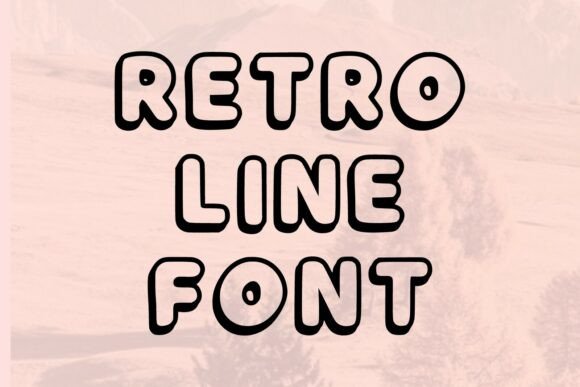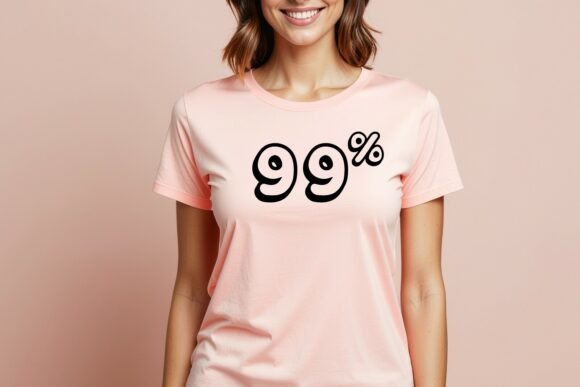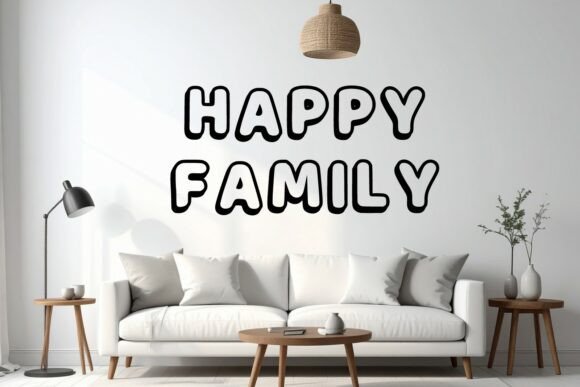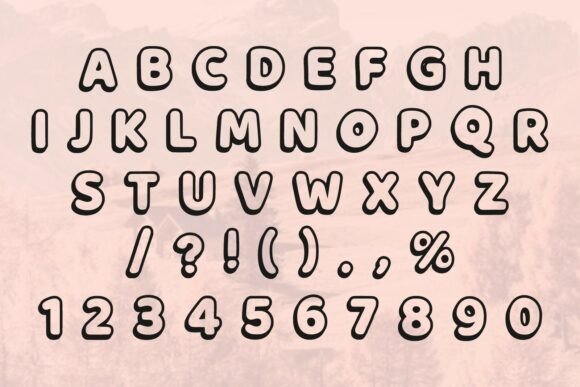
Introduction to Round Outline Font
Do you remember the thrill of creating your first design project? The rush of excitement as you poured your heart and soul into bringing your idea to life? For many designers, it’s moments like these that remind us why we love our job. And what’s a great way to start a design project than with a beautiful, high-quality font like the Round Outline Font? This fun and friendly rounded outline display font is perfect for adding a soft, cheerful touch to your designs.
As a valuable design resource, the Round Outline Font is ideal for kids designs, stickers, logos, posters, social media graphics, t-shirt designs, packaging, headlines, and creative branding projects. Its smooth curves and bold character shapes make it a great choice for designs that need to stand out. Plus, with its transparent background option, you can easily layer it over other design elements for a professional look. Whether you’re working on a free download or a paid project, the Round Outline Font is sure to add a modern touch to your designs.
- Unique characteristic: the font’s rounded outline design adds a touch of modernity and sophistication to any project.
Honest Review: Round Outline Font
I recently came across the Round Outline Font, and I must say it’s a game-changer for my creative projects. This high-quality font is perfect for anyone looking to add a touch of elegance to their designs.
- ✨ High-quality vector graphics that are crisp and clear
- ✨ Transparent background, making it easy to customize and combine with other design elements
- ⚠️ Limited character set, which may not be ideal for lengthy texts
- ⚠️ Not suitable for very small font sizes, as the outline may become too thin
Overall, I’m really impressed with the Round Outline Font. It’s a fantastic design resource that can add a unique touch to your projects. With a little creativity, you can use it in a variety of ways to elevate your designs.
Round Outline Font
Round Outline Font is a high-quality design resource perfect for creative projects that require a touch of sophistication. This transparent background font is ideal for designers looking for a versatile and stylish addition to their designs.
Tips for Getting the Most Out of Round Outline Font
For best results, use Round Outline Font on a high-contrast background to make the text stand out. You can also experiment with different font sizes and styles to create a unique and eye-catching design.
Round Outline Font is perfect for designing logos, posters, and other marketing materials that require a touch of sophistication. It’s also great for creating social media graphics, presentations, and other visual content that requires a high-quality font.